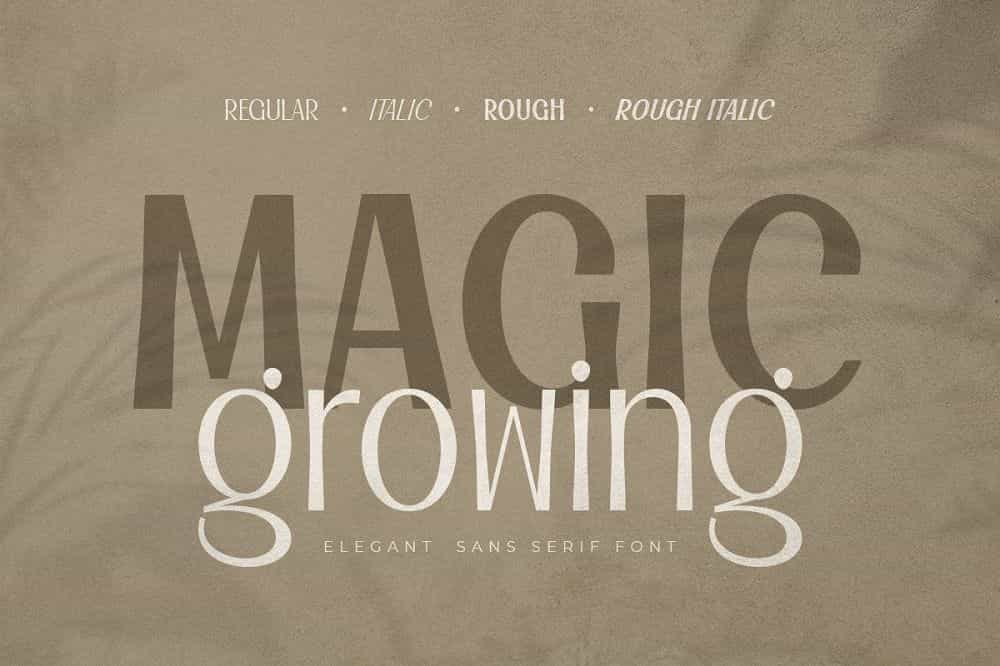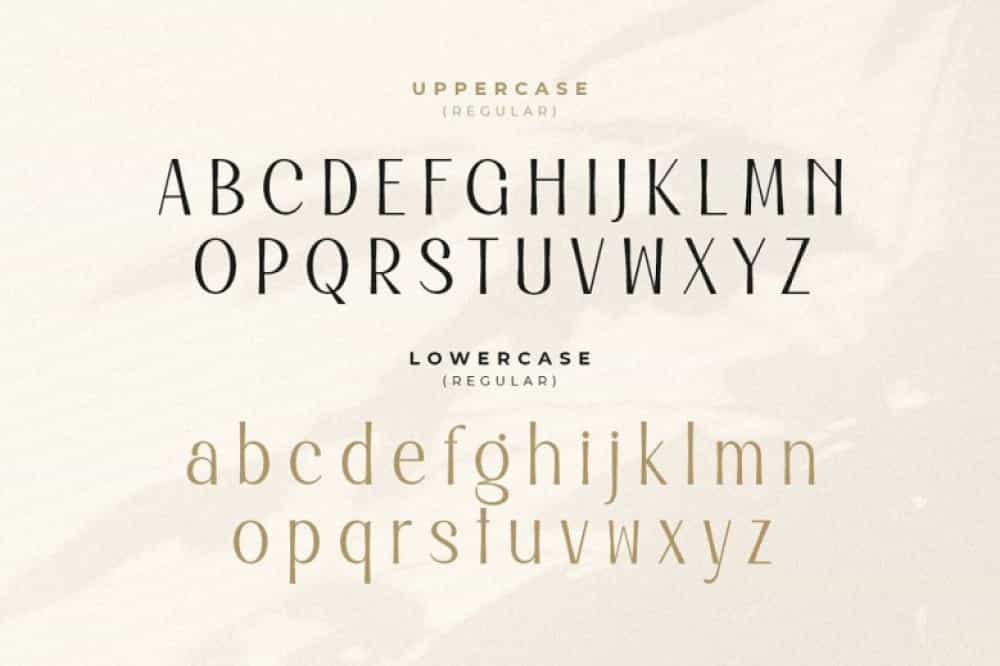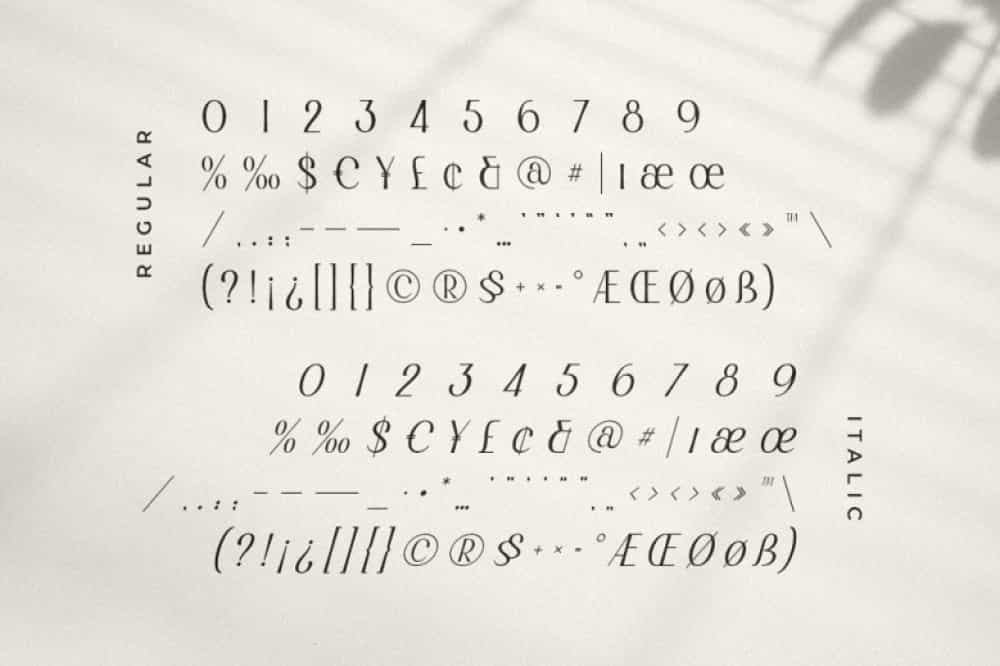
Magic Growing is a clean sans-serif font with a touch of elegance and style from Sensatype Studio with a special character by morisco studio. It is quite beneficial to present to a designer or a product owner who requires solution to enhance the attractiveness of their design.